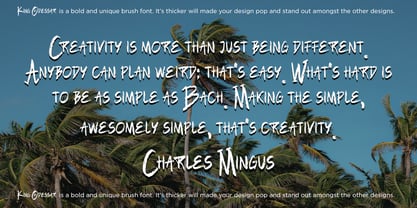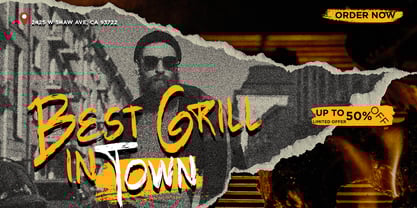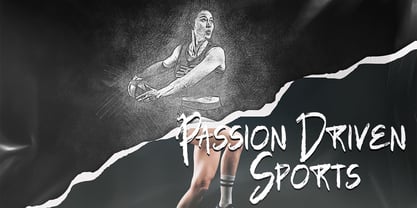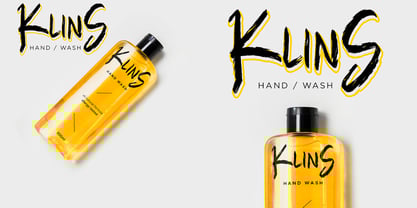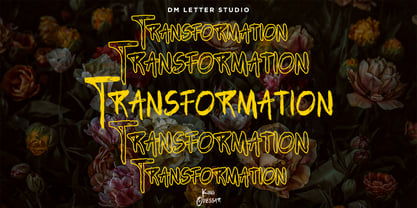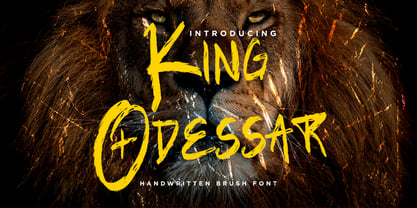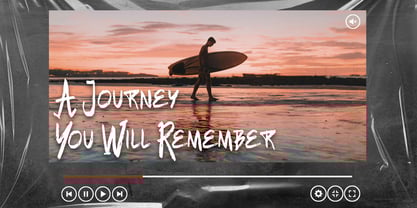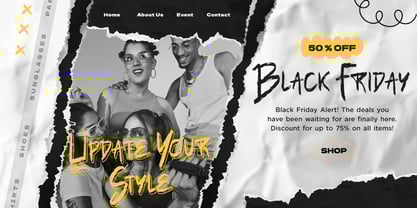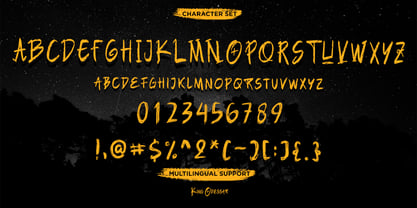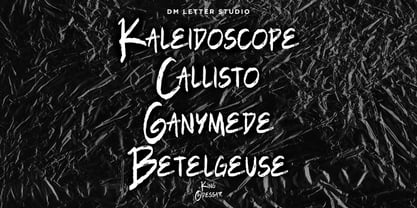
King Odessar
by DM Studio
King Odessar is a fierce and dynamic handwritten brush font that roars with personality. With bold, scratchy strokes and wild energy, this typeface is designed to dominate your visual space. Whether you're working on branding, merchandise, music covers, or poster design, King Odessar gives your work an untamed and powerful aesthetic.
Its handcrafted brush style adds a rugged, raw edge that feels both urban and primal—perfect for creators looking to leave a strong, fearless impression.
Designers: Dimas Prasetyo
Foundry: DM Studio